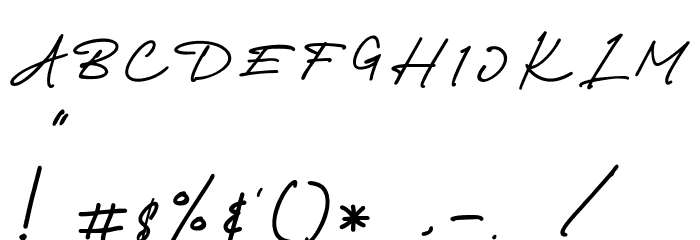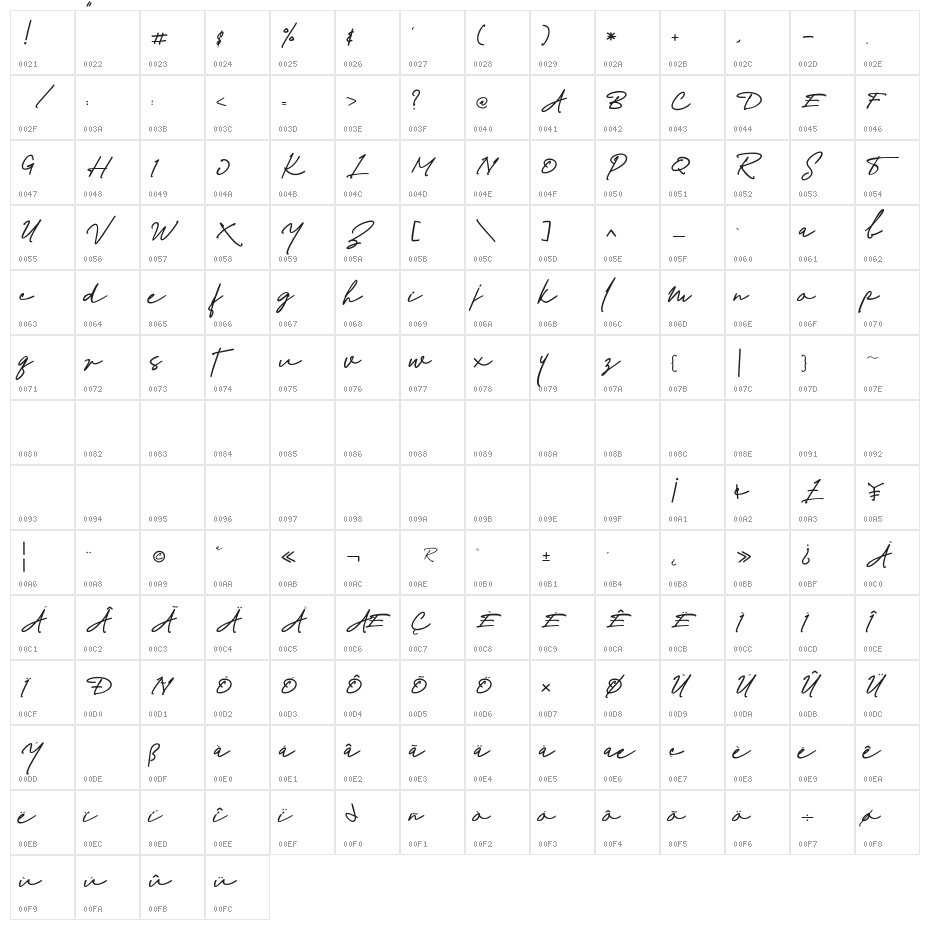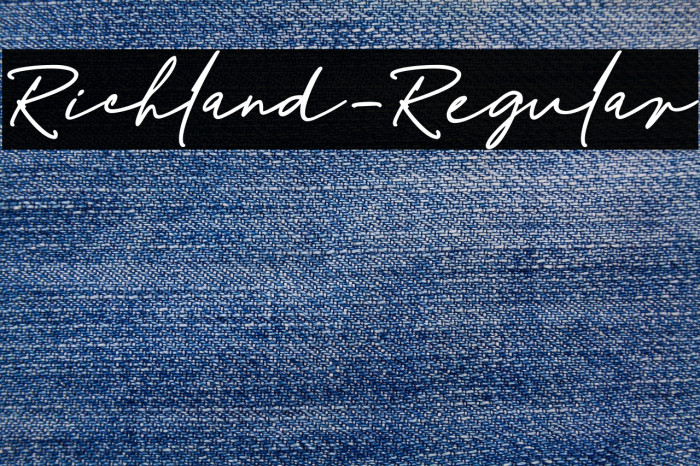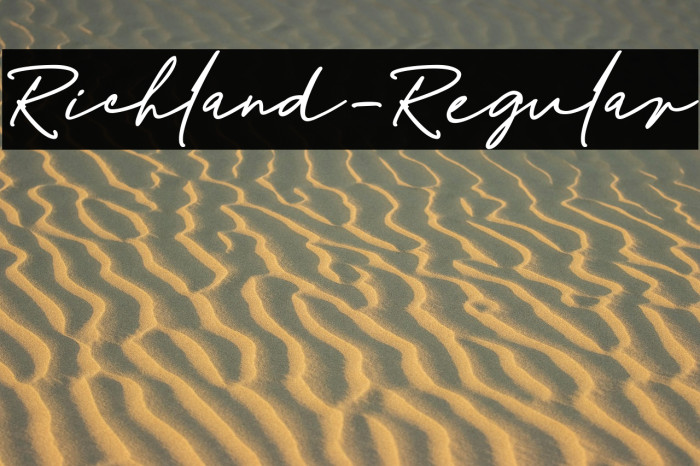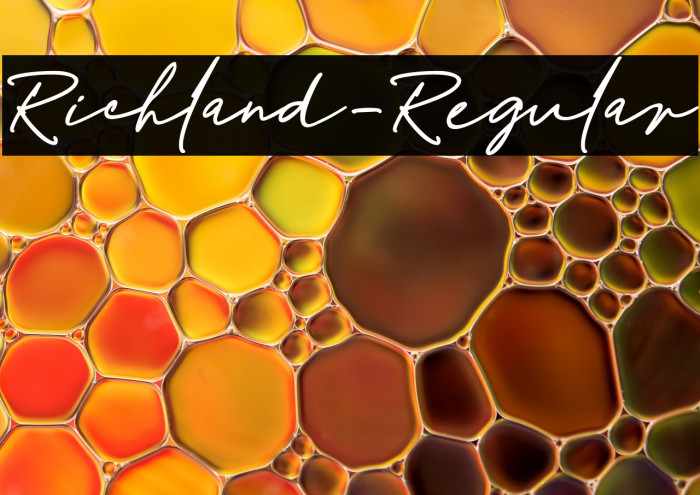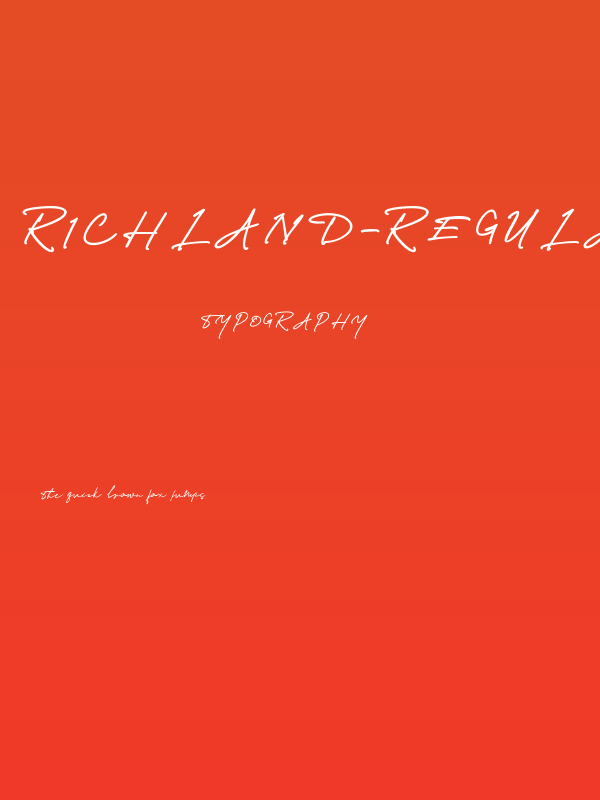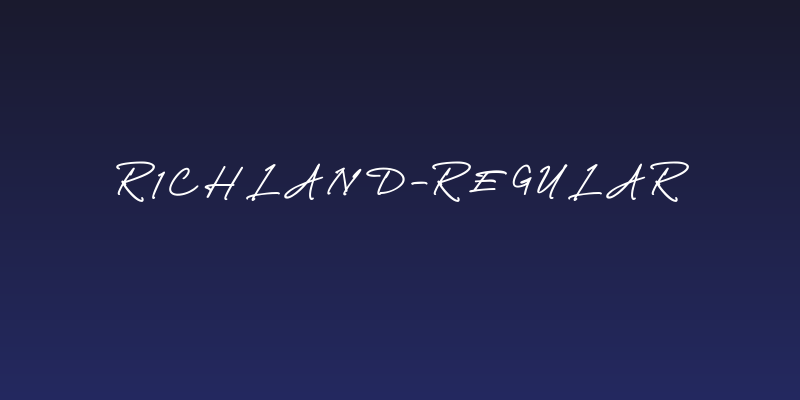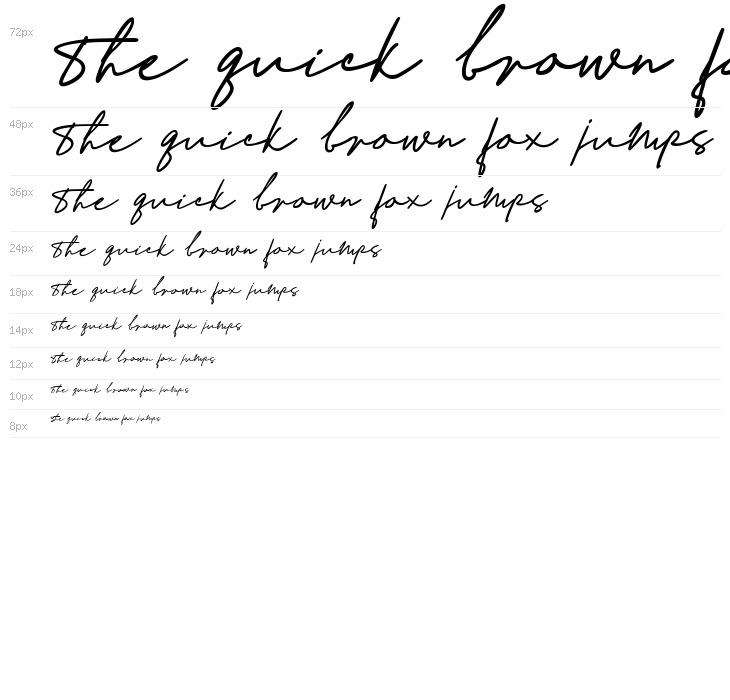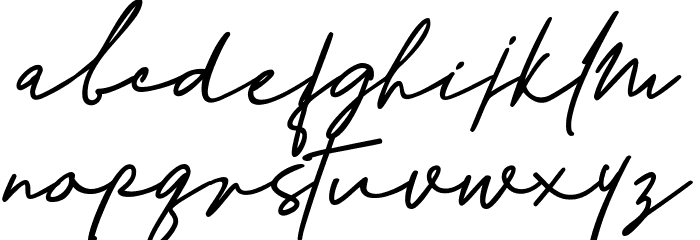
Richland-Regular Font
Richland-Regular Description
This font exhibits a flowing, cursive style that mimics elegant handwriting. The characters are interconnected, creating a seamless and fluid appearance. The uppercase letters are slightly more ornate, with gentle curves and loops, while the lowercase letters maintain a consistent slant and smooth transitions. The font's overall look is sophisticated and artistic, making it suitable for creative and formal applications. The special characters retain the same fluidity, ensuring consistency across all glyphs.
| Proposed Projects | Ideal for wedding invitations, greeting cards, personal branding, and artistic projects requiring a touch of elegance. |